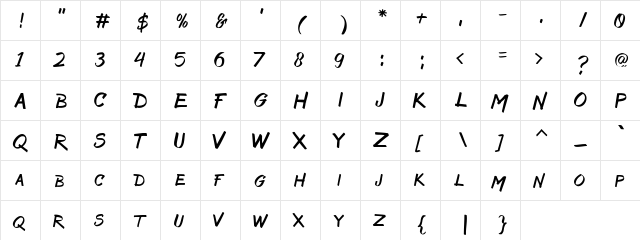
Bruss Normal Regular
| Foundry | Akufadhl |
| Designer | akufadhl |
Design Context for Bruss Typeface
Bruss is a composed and adaptable typeface that performs quietly and consistently across a wide range of design contexts.
Pro Tip: Use Bruss in both headline and body roles to test its range before committing to a single application.